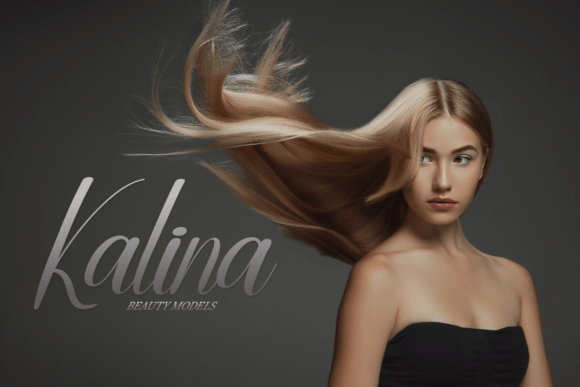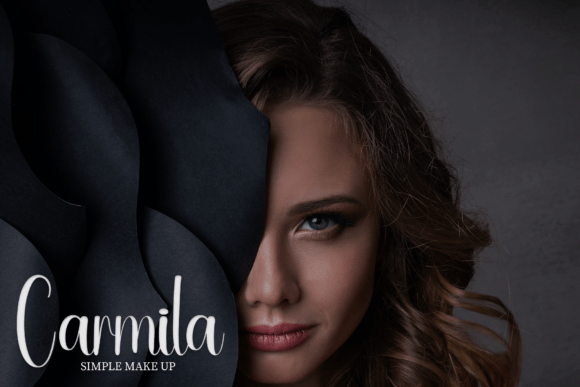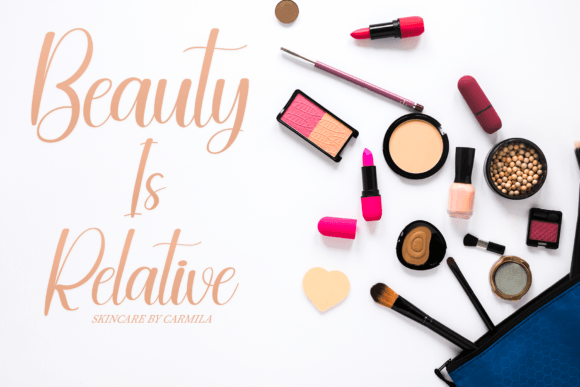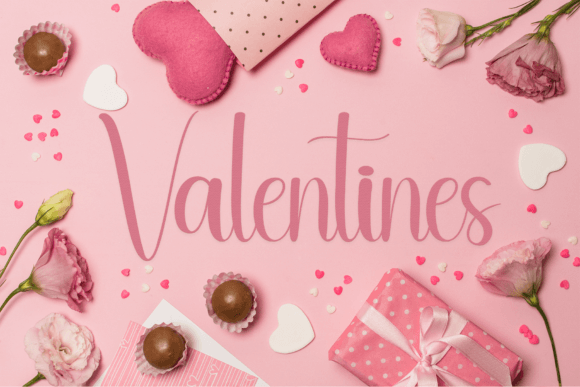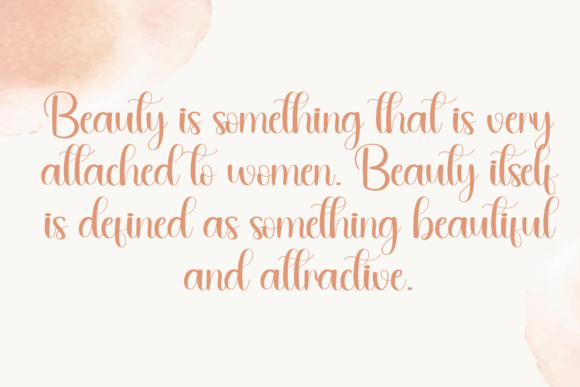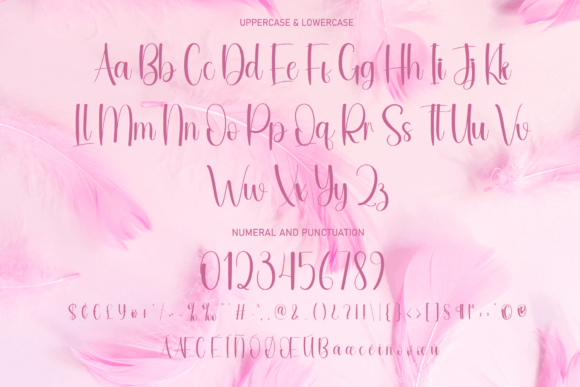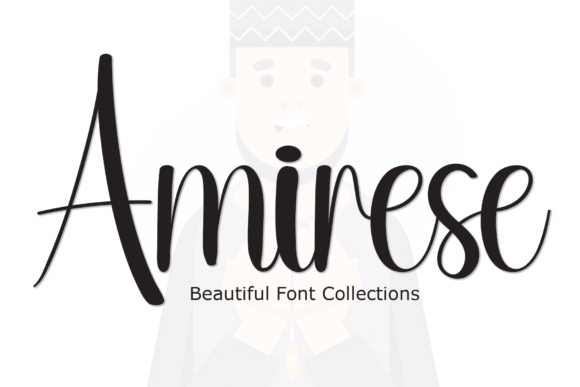
The Amirese Font: A Sweet and Friendly Addition to Your Design Toolbox
I’ll never forget the time I was working on a wedding invitation project, and I just couldn’t find the right font to capture the sweet and playful vibe of the couple’s special day. I scrolled through page after page of Google search results, tried out font after font, but nothing seemed quite right. That was until I stumbled upon the Amirese font. With its fresh and neat handwritten style, it was love at first sight! In this article, I’ll share my experience with the Amirese font, its features, and how to make the most of it in your designs.
An Honest Review of Amirese Font
What I Love About Amirese ✨
• ✅ Sweet and friendly handwritten style that’s perfect for wedding invitations, cards, and other designs that need a fun touch
• ✅ Fresh and neat appearance that’s easy on the eyes
• ✅ Versatile and can be used for a variety of design projects, from digital to print
• ⚠️ Limited character set compared to some other fonts, which can be a limitation for certain projects
• ⚠️ Not suitable for body text or long-form content, as it’s best used for headlines and titles
The Story Behind Amirese Font
Amirese font was designed by a talented type designer who’s passionate about creating beautiful and functional fonts. The designer’s inspiration for Amirese came from a combination of traditional handwriting styles and modern digital trends. The result is a font that’s both fresh and classic, perfect for designers who want to add a touch of personality to their work.
Q: What is the Amirese font best used for?
A: Amirese font is best used for designs that need a sweet and friendly touch, such as wedding invitations, cards, and other projects that require a playful personality.